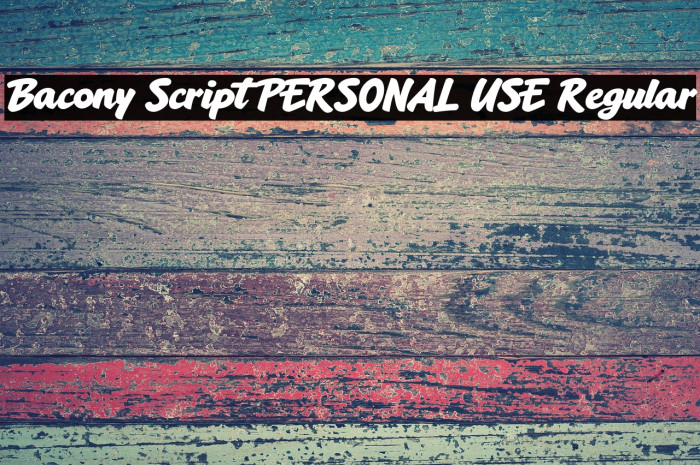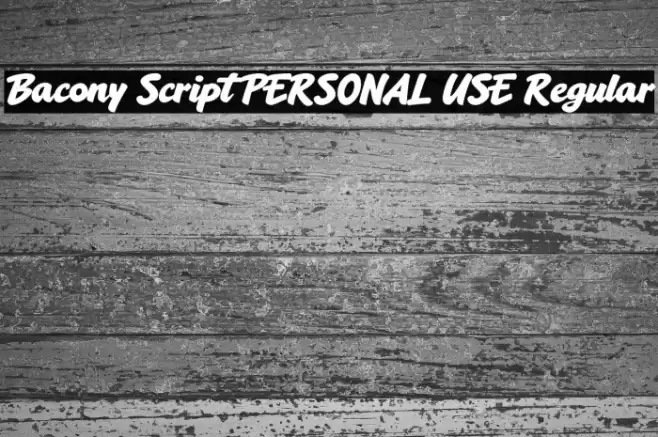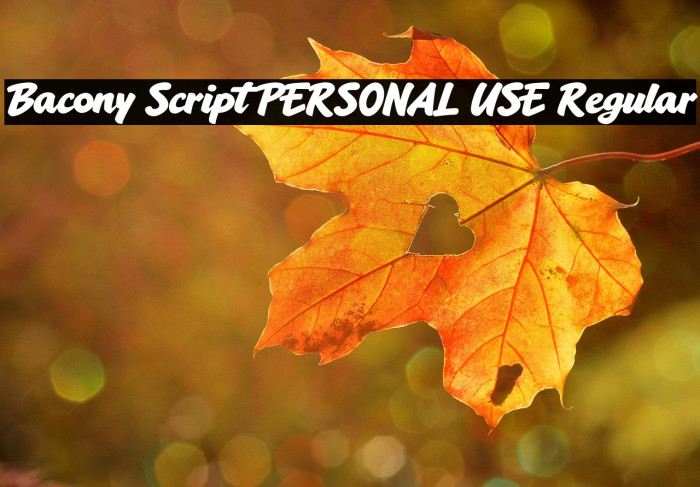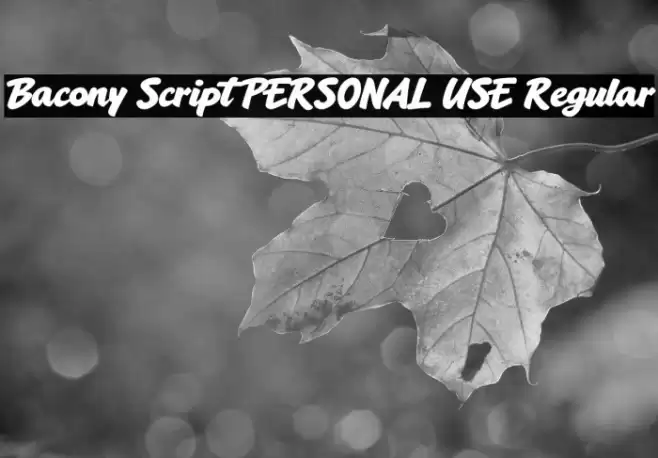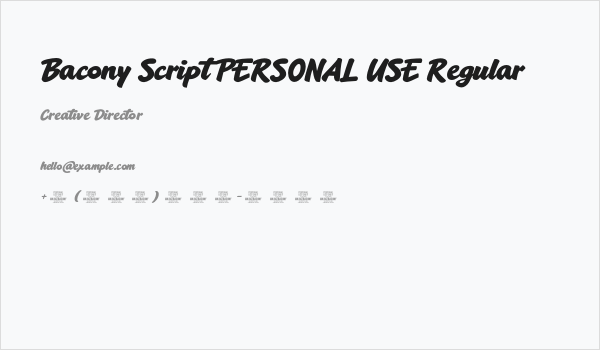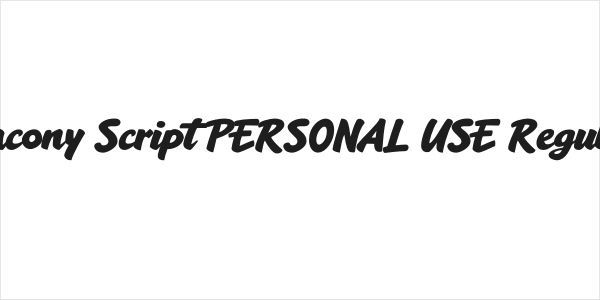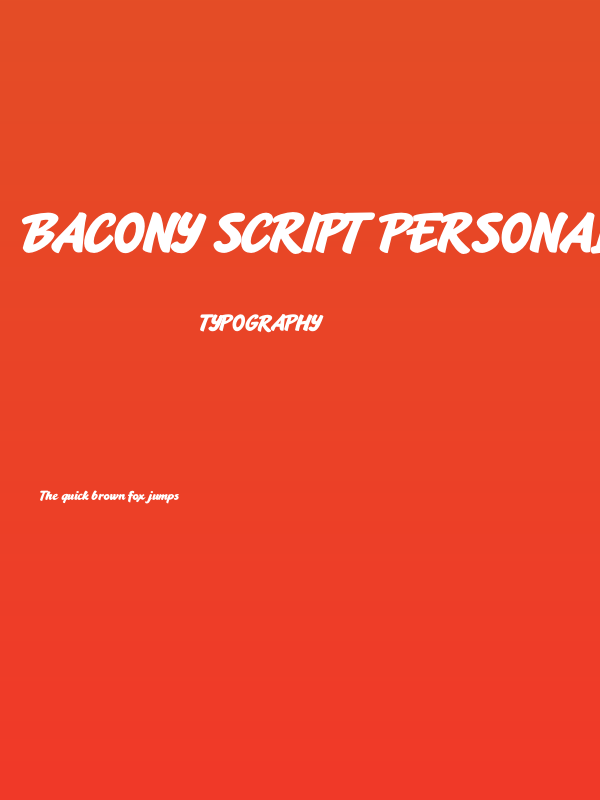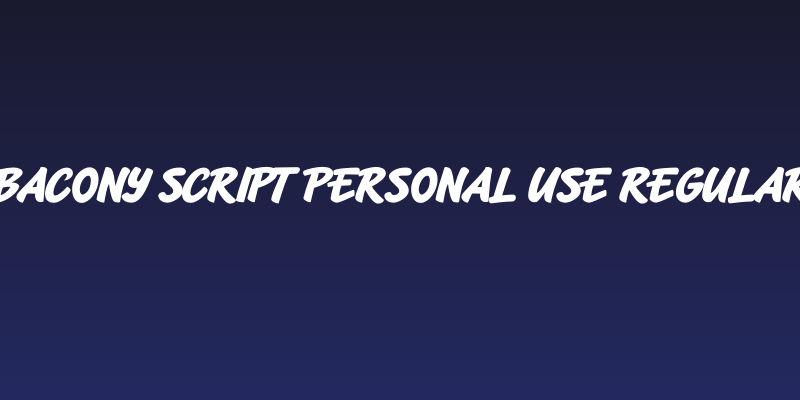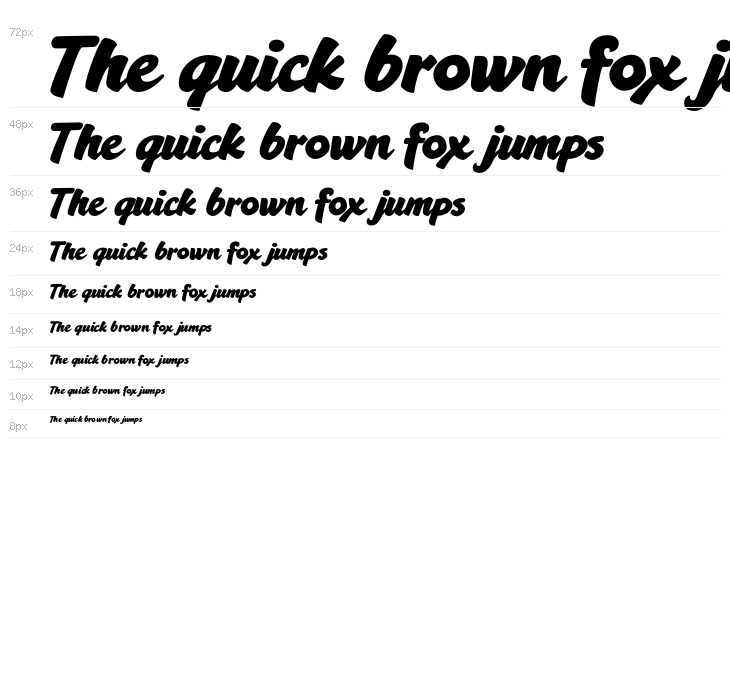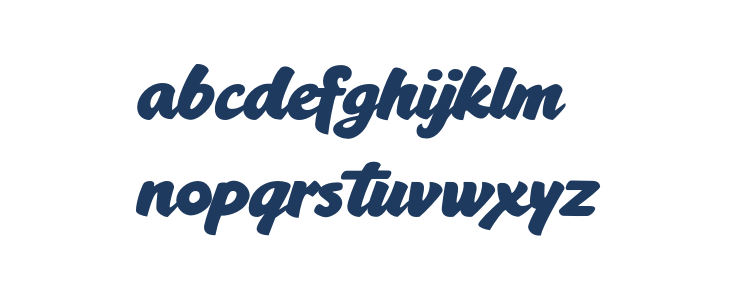
Bacony Script PERSONAL USE Regular Font
Bacony Script PERSONAL USE Regular Description
This font features a bold and dynamic script style with a strong presence. The characters are connected in a fluid manner, giving it a handwritten appearance. The strokes are thick and consistent, providing a sense of confidence and flair. The uppercase letters are bold and commanding, while the lowercase letters maintain a smooth and flowing look. The numbers and special characters are designed to match the overall style, ensuring a cohesive look across all text. This font is ideal for projects that require a personal touch or a statement piece.